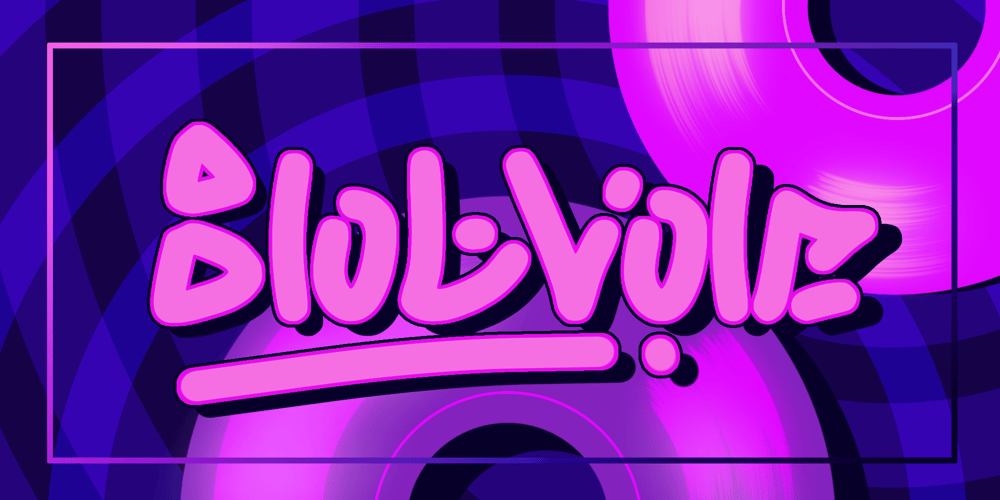
Blob Vole Font Family was designed by Zaizafun Hanifah and published by Daily Studio. Blob Vole contains 1 styles and family package options. Blob Vole is a bolt font designed by Daily Studio. Specifically developed to be suitable for logos, headlines, titles, branding, visual identity, business cards, and posters. This typeface includes full lowercase, uppercase, numbers, punctuation, and standard multilingual letters. With more than 200 glyphs and file in OTF format.